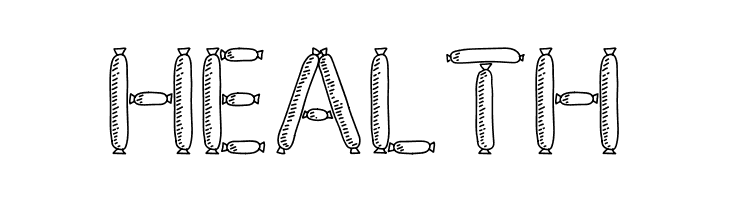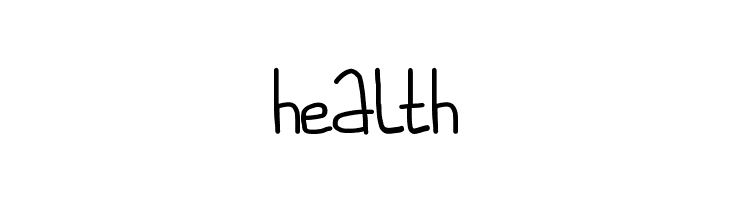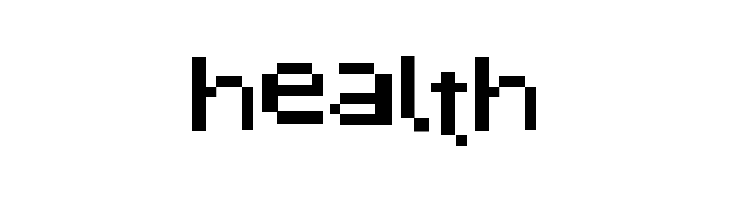
A playful, sausage-themed decorative font with a whimsical design.
A playful, handwritten font with tall, narrow letters and a casual style.
A pixelated, retro-style font inspired by early digital displays.